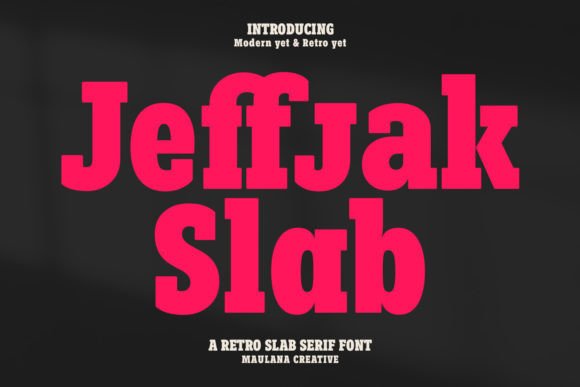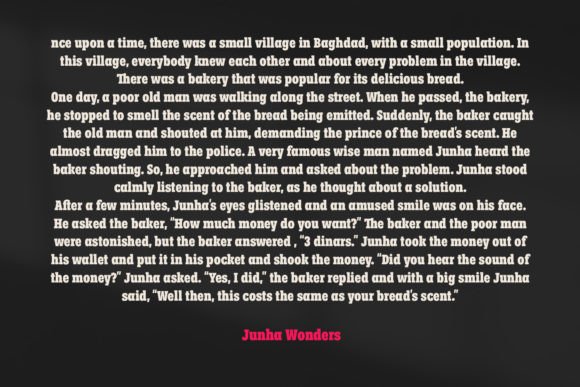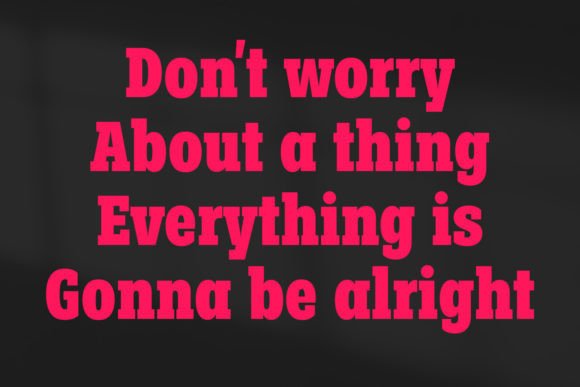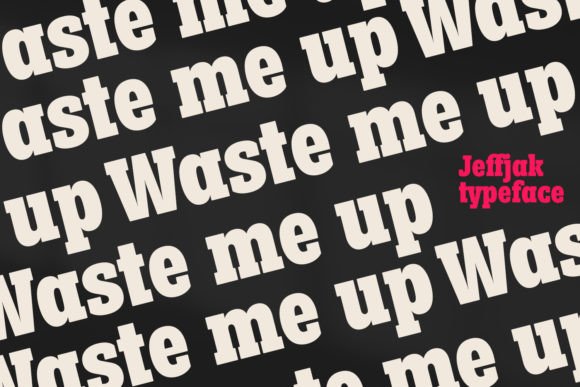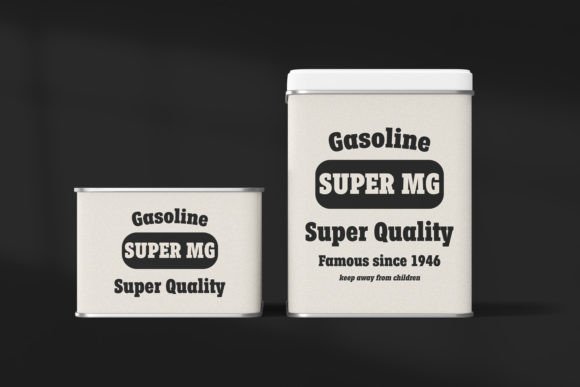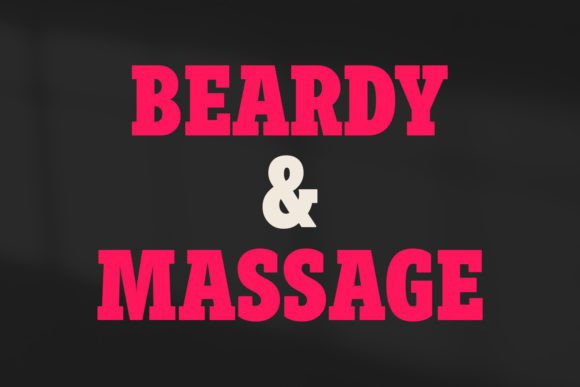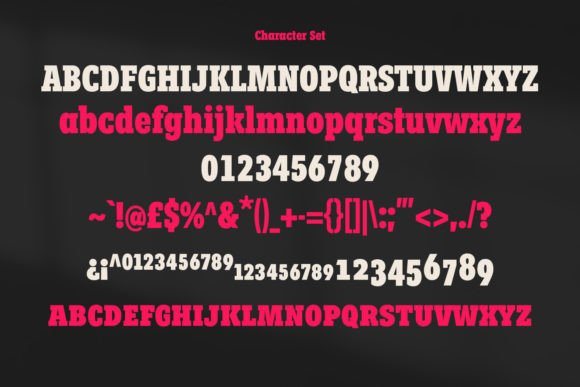
Jeffjak Font
Jeffjak is a simply semi-geometric slab serif font. With medium low contrast stroke, fun character with a bit of ligature and alternates to give you extra creative work. Jeffjak is good for logo design, social media, movie titles, book titles, short text, and even long text, and good for your secondary text with a sans or serif. Make stunning work with Jeffjak font!